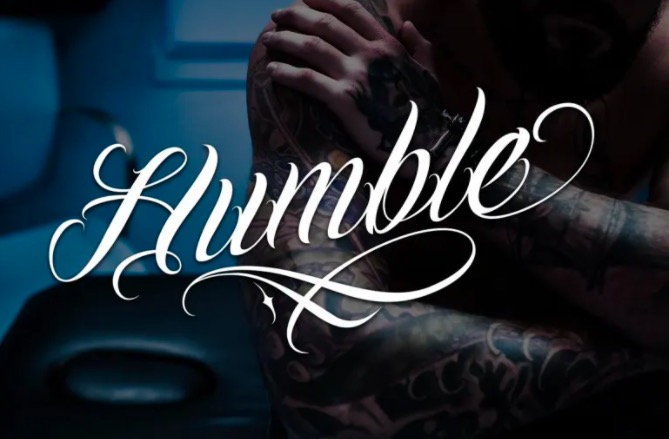
Chicano Font is a particular that was designed and shared by Muntab_Art, and this script font contains a set of lowercase & uppercase letters. Besides, all lowercase letters of this font have end swashes as well as the alternative font.
This calligraphy Chicano lettering typeface will make your designs become more professional day by day.
Chicano Font | Tattoo Style